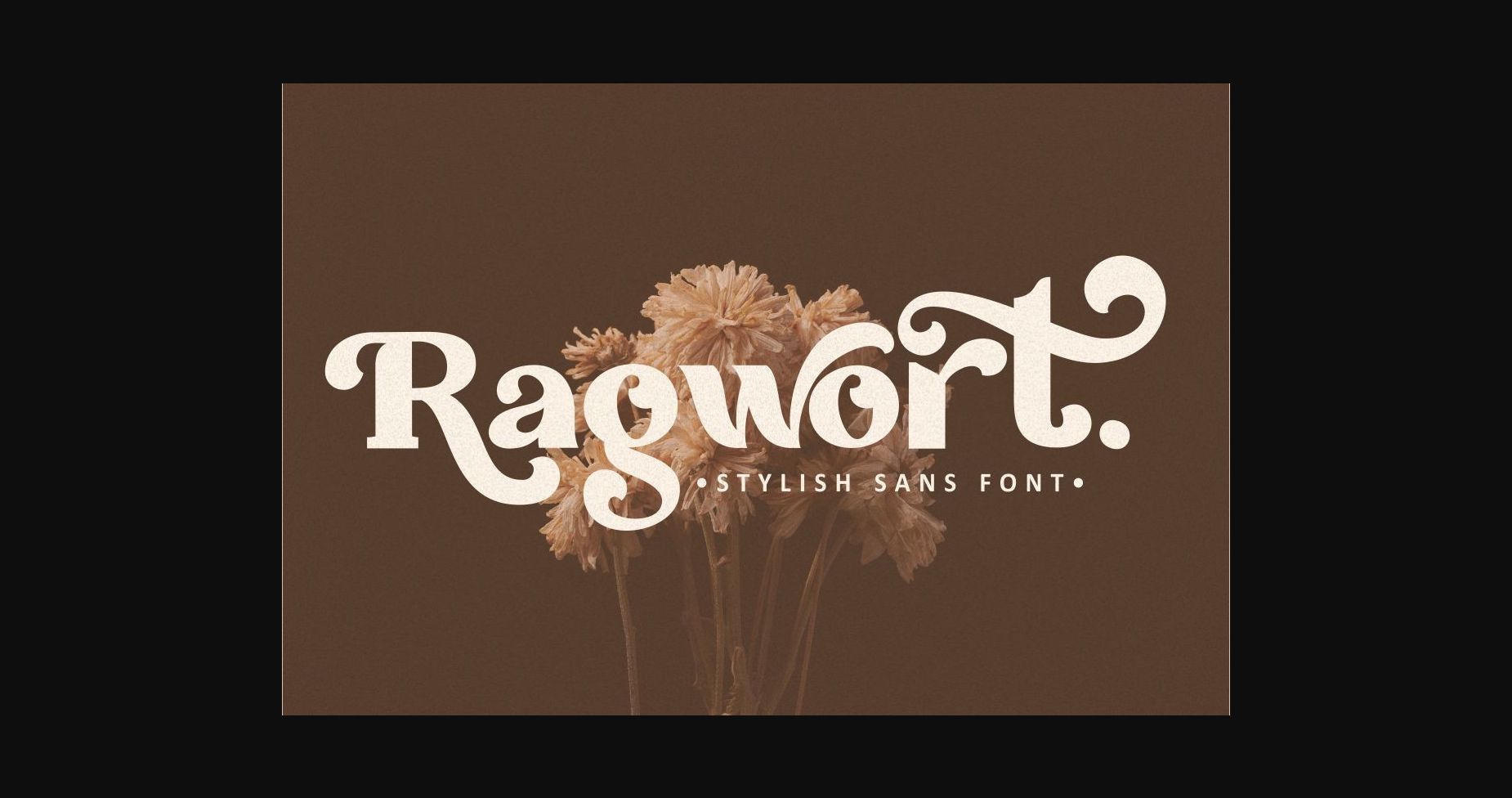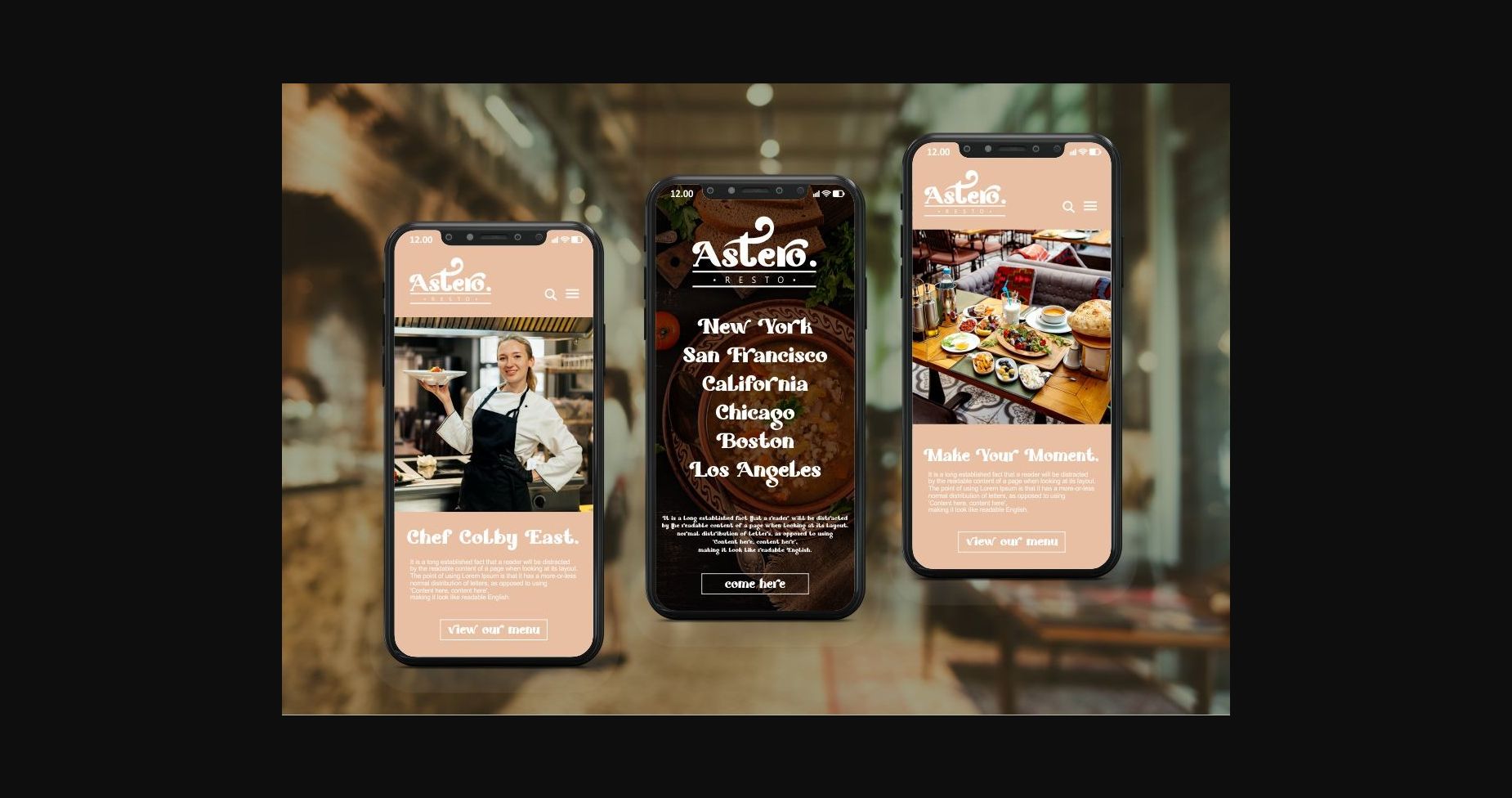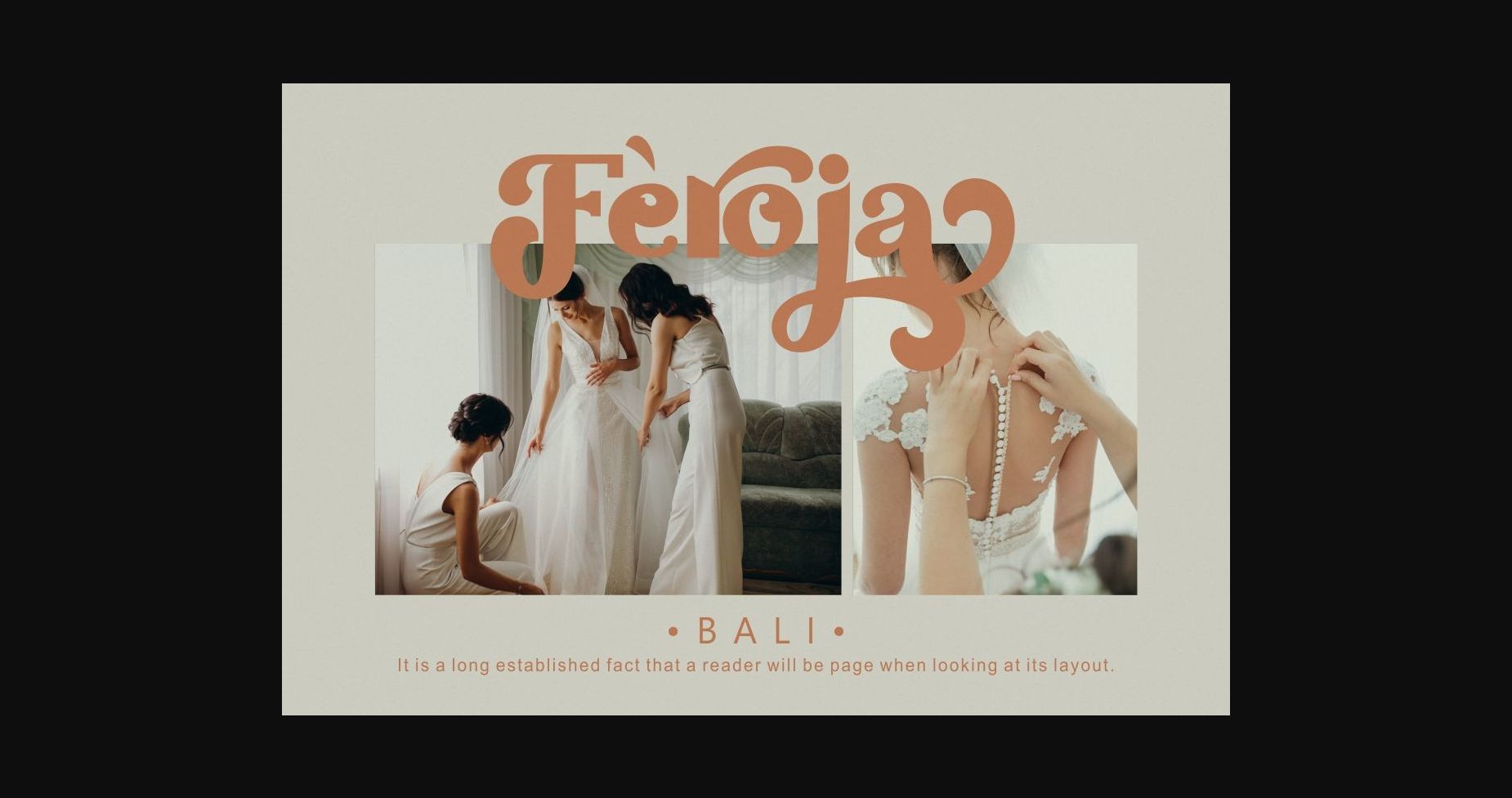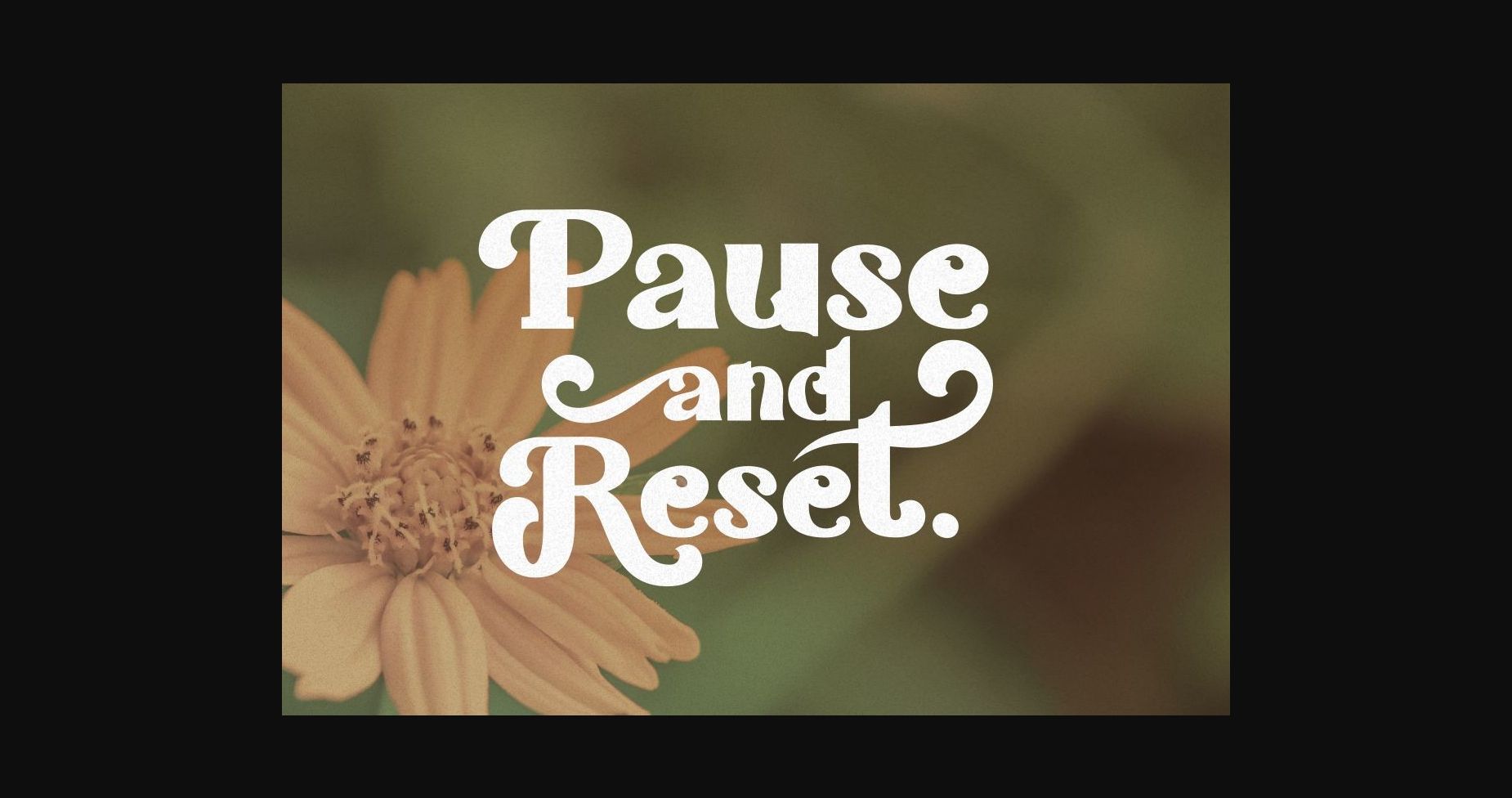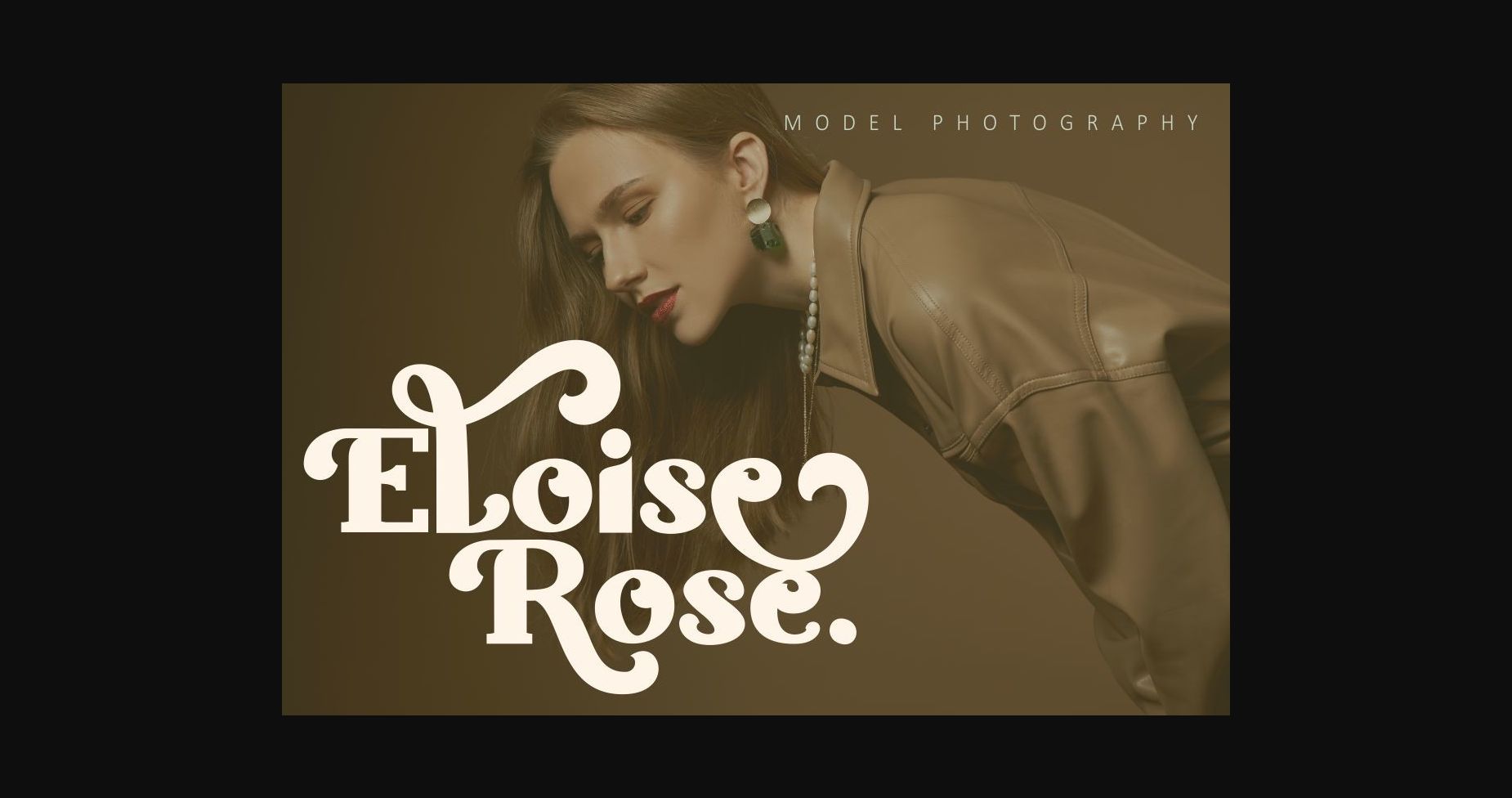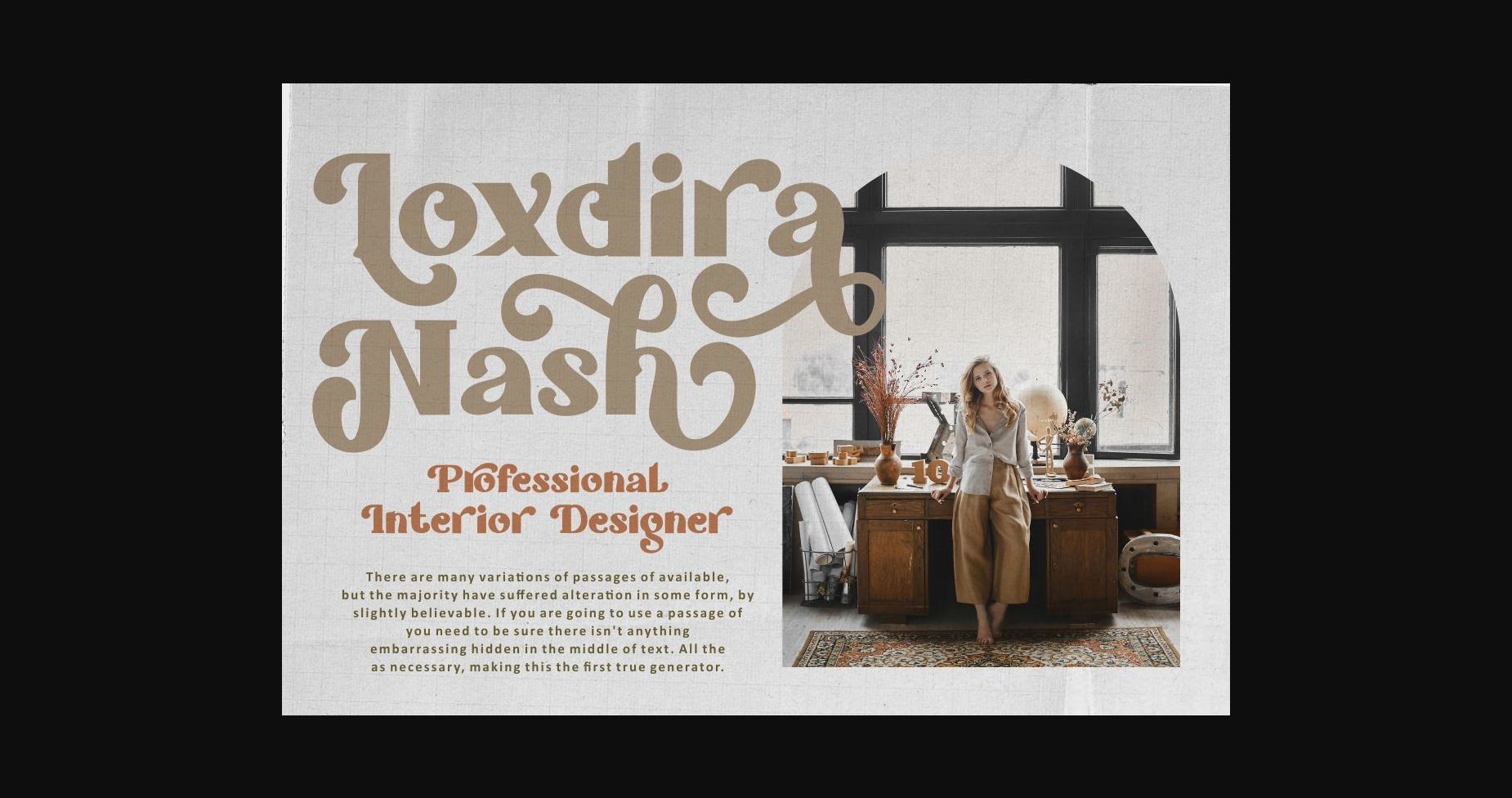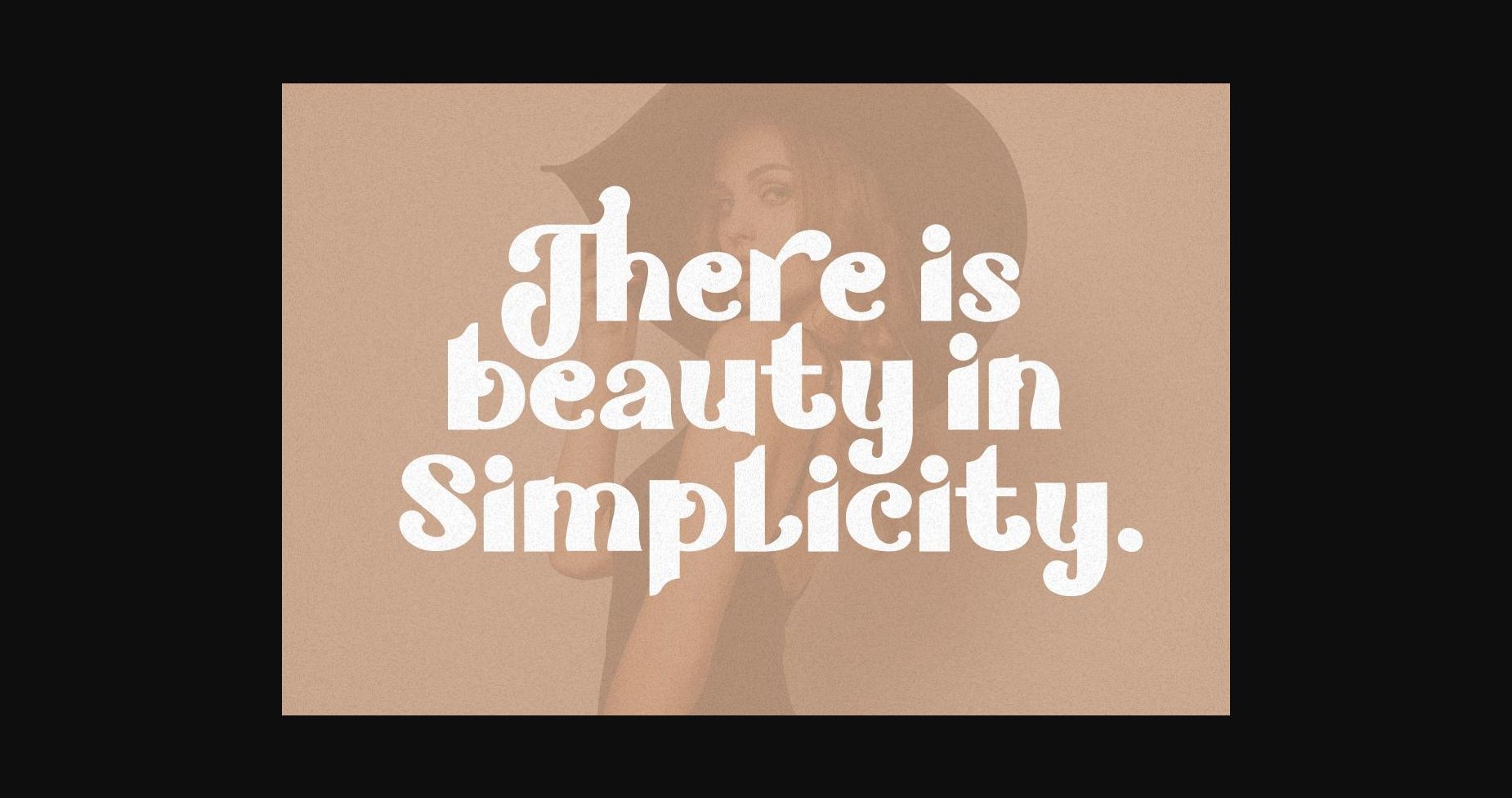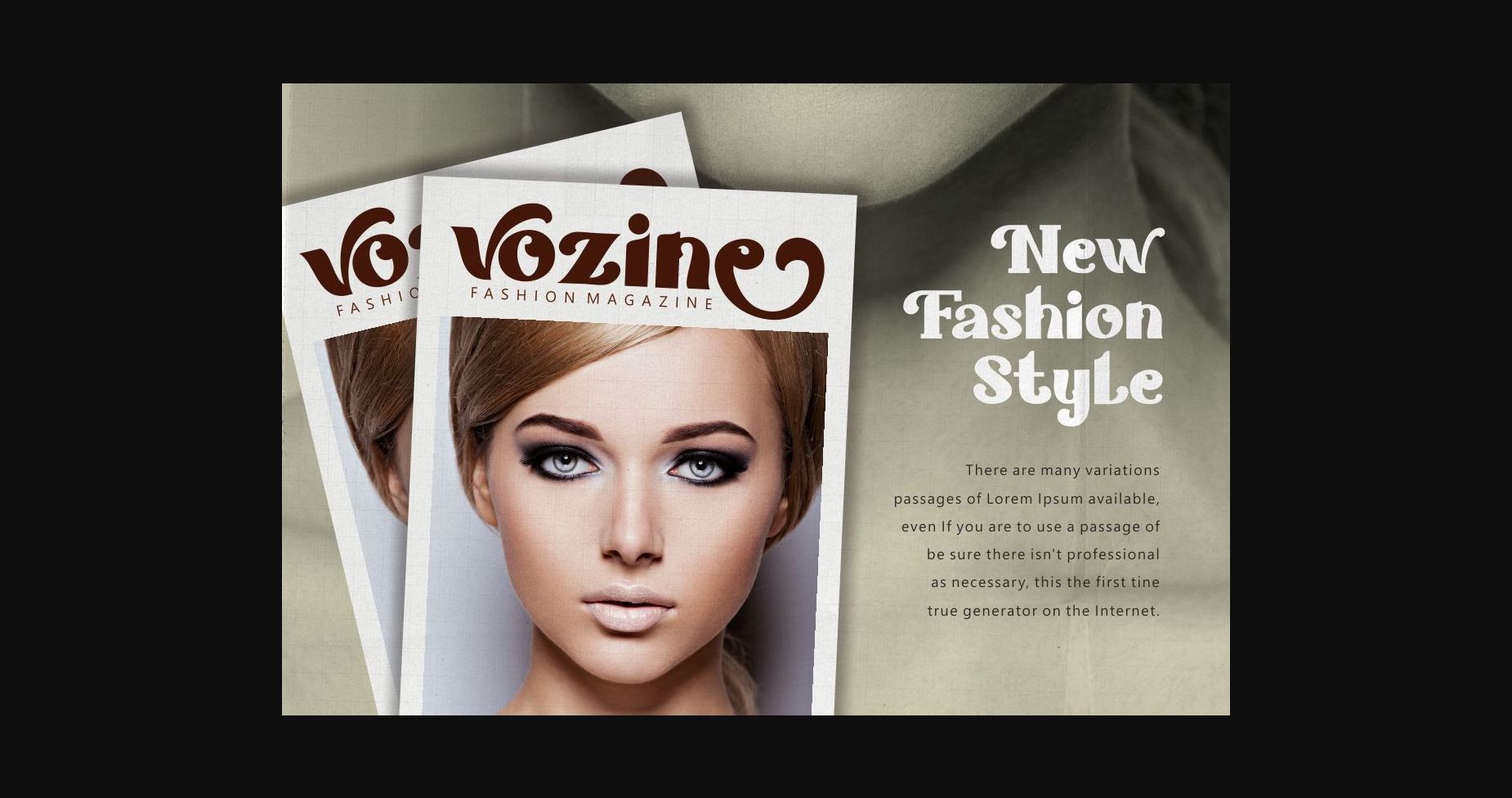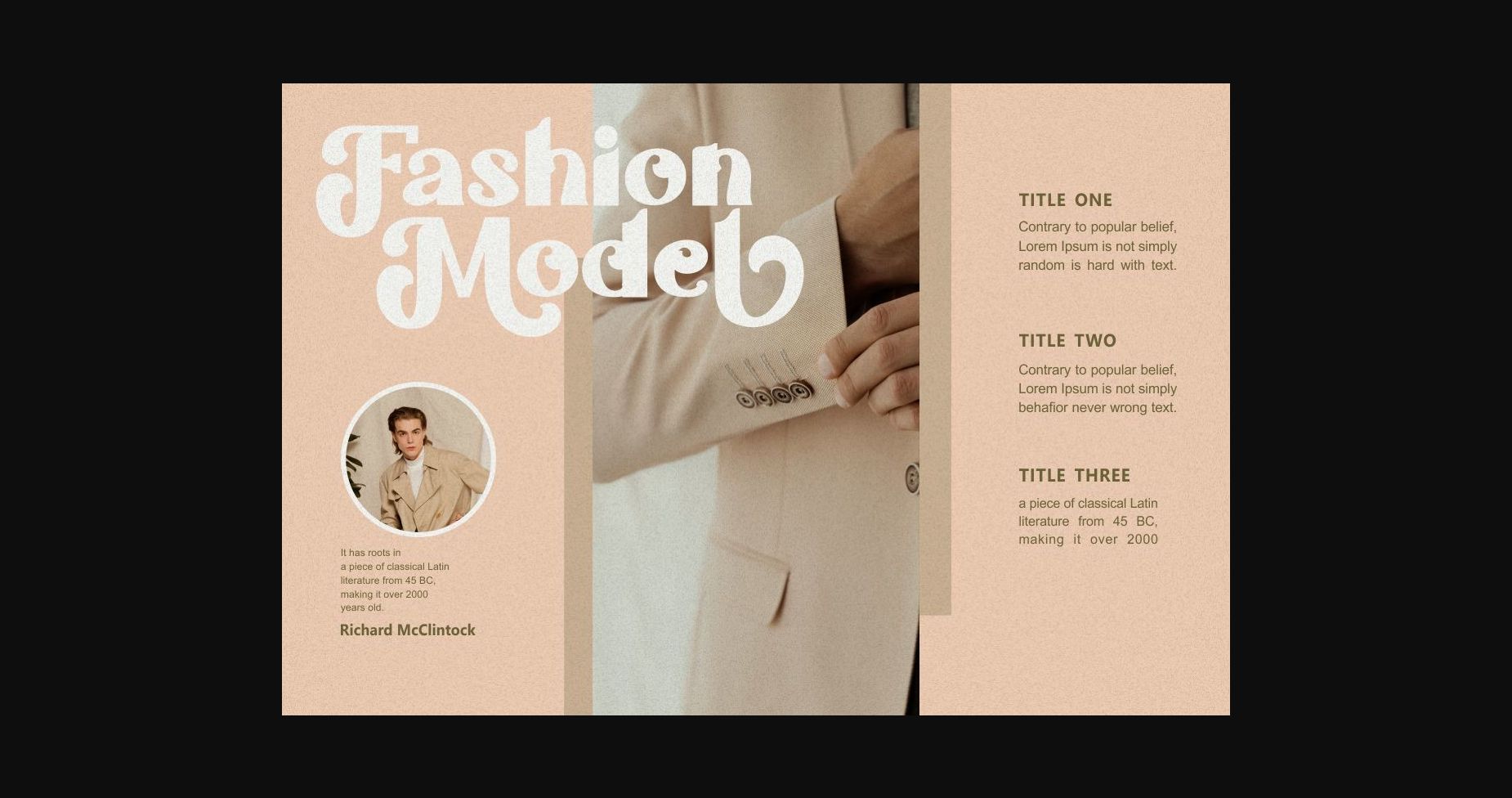
Ragwort Font
About Ragwort Font
Royal Lodge font makes for more fun, trendy and more lively. This font is inspired by the extra bold font style and well-balanced curves.This font has a surprise from an alternate that will make your work even more beautiful.
This font is perfect for a professional touch which makes it even more unique and classic. But this font is also suitable for logos, branding, greeting cards, invitation cards, advertisements, titles, healines, book titles, stickers, packaging, quotes, posters, t-shirts/apparel, billboards and others.